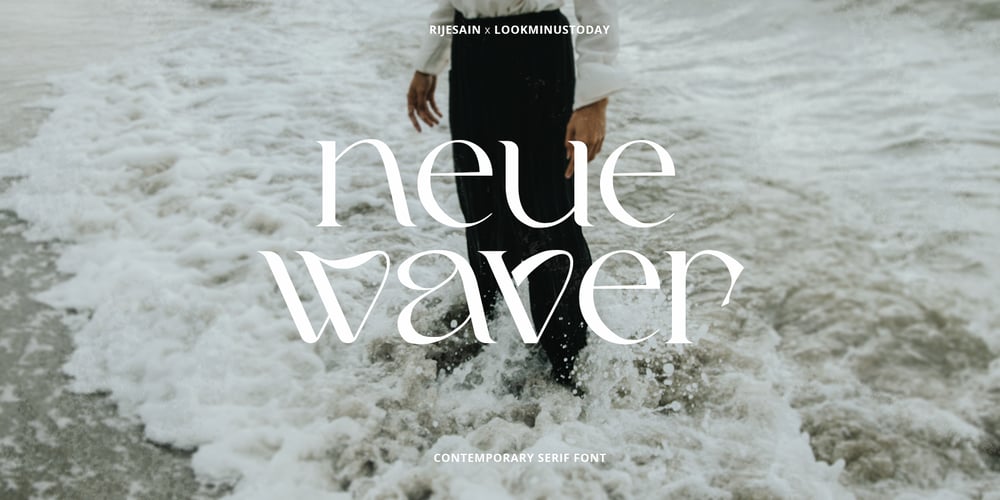
Neue waver Font Family was designed by Arif Rijal and published by Look Minus Today. Neue waver contains 1 styles and family package options. Introducing Neue Waver – Contemporary Serif Font With A Ligatures & Alternates by Rijesain x Look minus todayTrendy, elegant, retro, sharp & modern style serif font for your new fancy projects.Stylish, luxury, creative, romantic and classic style on Neue Waver font will be great for any modern branding project.Lot of alternates and ligatures will help you to create unique and original logo design or website header! Enjoy :)Features:- Uppercase & Lowercase- Ligatures & Alternates- Numerals & Punctuation- Multilingual- Simple Installations- Accessible in the Adobe Illustrator, Adobe Photoshop, Microsoft Word- PUA Encoded Characters- Fully accessible without additional design software. Thanks & Happy Designing!